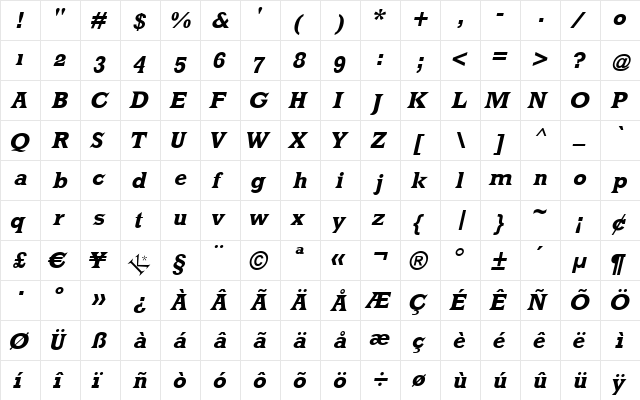
MKLatin Bold Italic
MKLatin Bold Italic Font Preview
MKLatin Bold Italic
Design Context for MKLatin Typeface
MKLatin offers clean, dependable letterforms without strong stylistic allegiance, making it a practical choice for designers who need flexibility. The slanted form adds forward momentum and visual energy. The heavy weight commands attention and anchors typographic hierarchies.
Pro Tip: Try MKLatin for annotation and caption copy alongside an upright companion — the contrast in angle creates a dynamic but ordered typographic system.